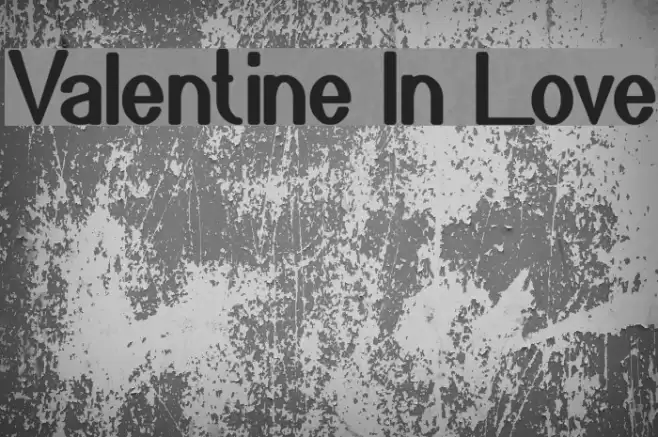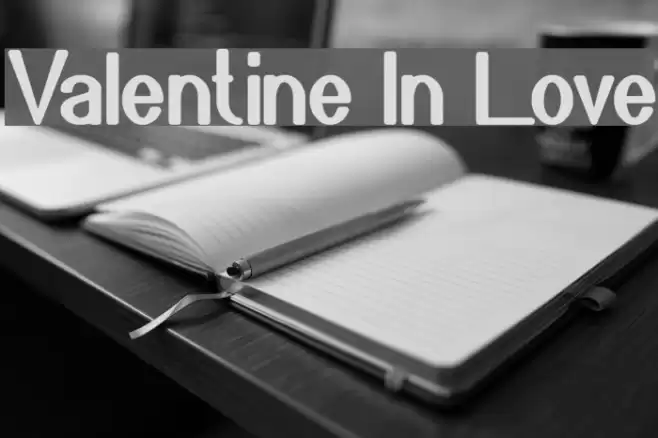
Valentine In Love Font
Valentine In Love Description
This font features a playful and rounded design, characterized by its smooth curves and friendly appearance. The uppercase letters are bold and slightly condensed, giving a modern yet approachable feel. The lowercase letters maintain the same rounded style, enhancing readability while adding a touch of whimsy. Numbers and special characters follow the same design principles, ensuring consistency across all elements. The overall look is clean and versatile, making it suitable for a variety of applications where a casual yet professional tone is desired.
A playful, rounded font with smooth curves and a friendly appearance from Uncategorized fonts.
- Proposed Projects: Ideal for children's books, playful branding, greeting cards, and casual digital content.
- Use Case: Headlines, Logos, Casual Text